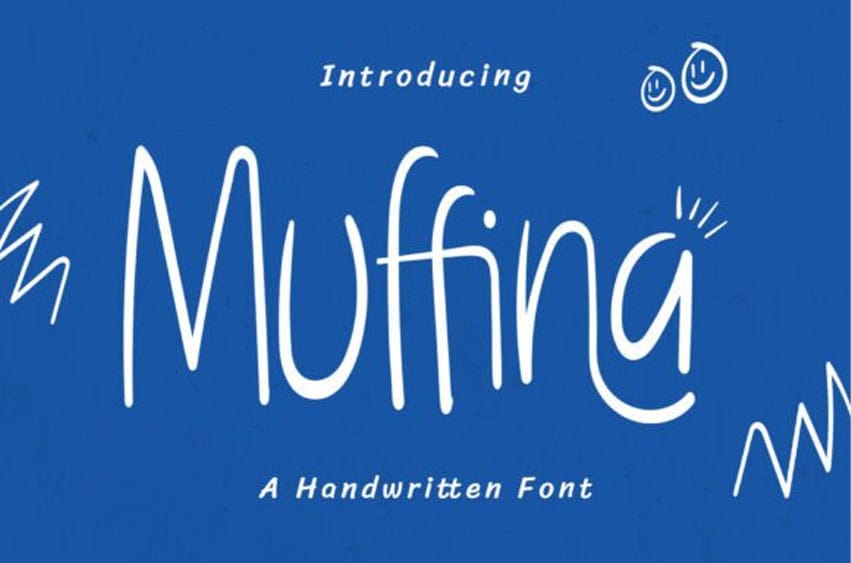
Muffina Regular Font is a playful handwritten font that’s simply bursting with charm and personality. With its relaxed, casual strokes and wonderfully friendly vibe, Muffina injects a cheerful, human touch into any design you’re working on.
It’s an ideal choice for branding, engaging social media posts, delightful children’s projects, eye-catching packaging, and all sorts of DIY designs. Muffina comes with full alphabet support, essential punctuation, and multilingual characters, making it super versatile. Pick Muffina when you want your message to feel lighthearted, fun, and genuinely approachable.